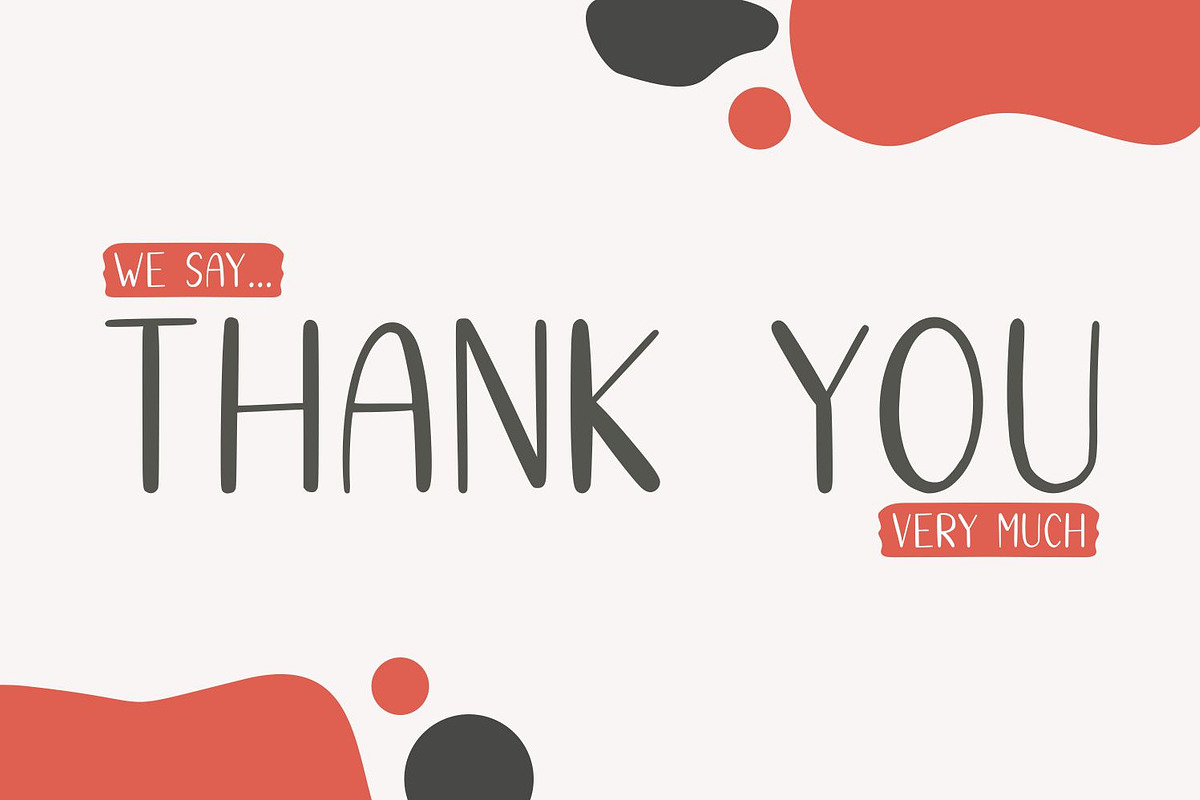
Hello Star | EXTRA SHAPES
Introducing Hello Star
Hello Star is the perfect font for all your fun and minimalism designs. The main font file is equipped with ordinary characters. Everything is made with the funny brush. So you can be sure they will work well together! It is suitable for you to use in making t-shirt design, quote, label, packaging, logo type, or long writing. Because we have compiled kerning and matrices that are tailored to your needs.
Hello Star features:
- Opentype Features (Stylistic Alternates and Ligatures)